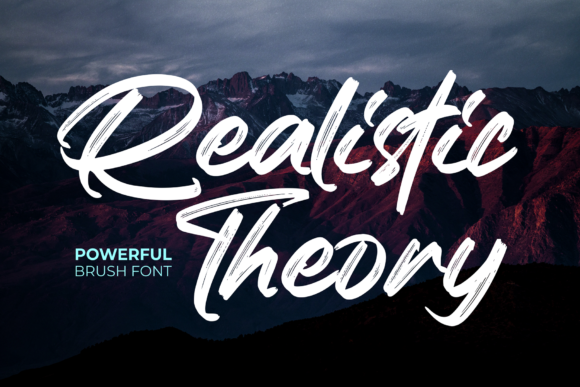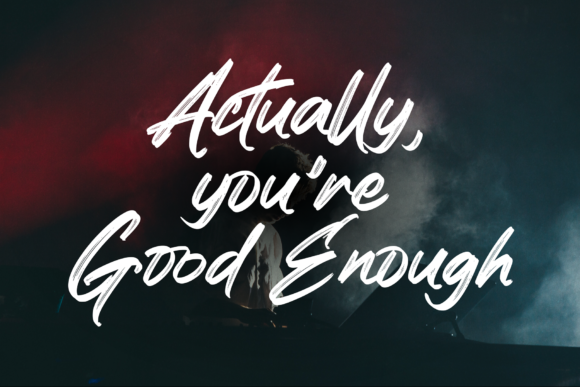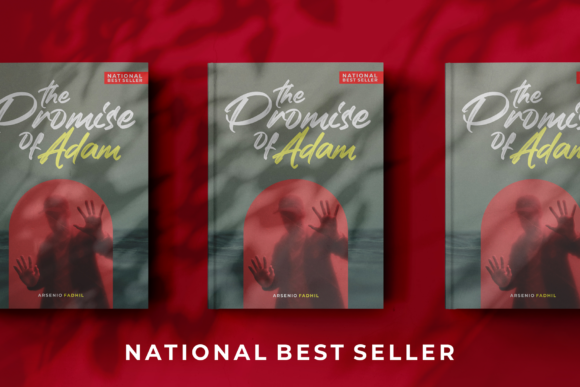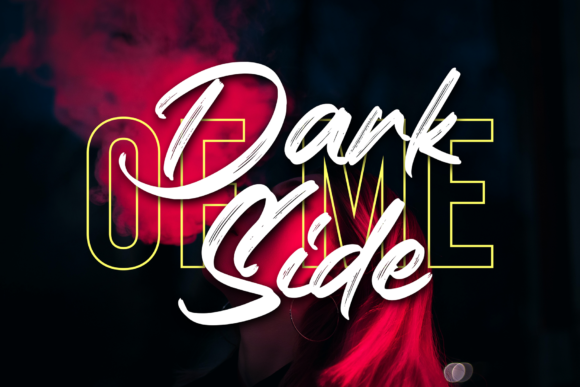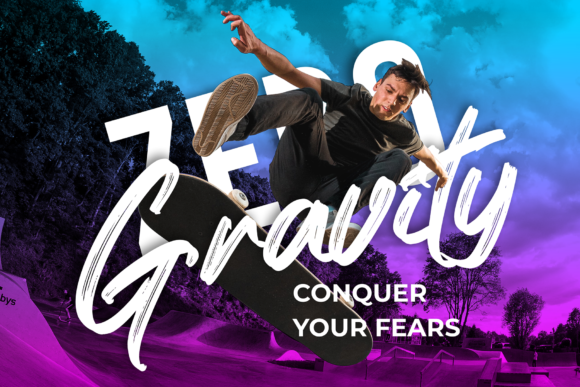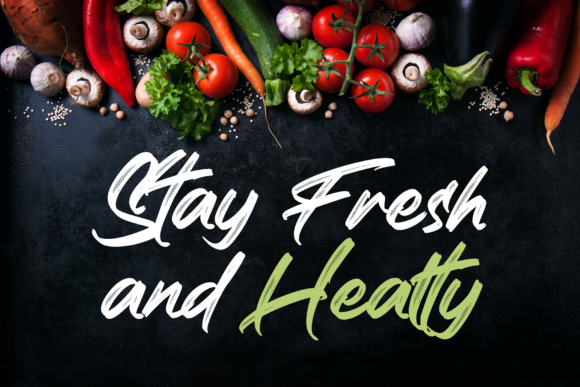
Realistic Theory Font
About Realistic Theory Font
Realistic Theory is a beautiful and brushed handwritten font. It has a casual, yet elegant touch. It can be used for various purposes such as logos, wedding invitations, headings, t-shirts, letterhead, signage, labels, news, posters, badges and so much more.